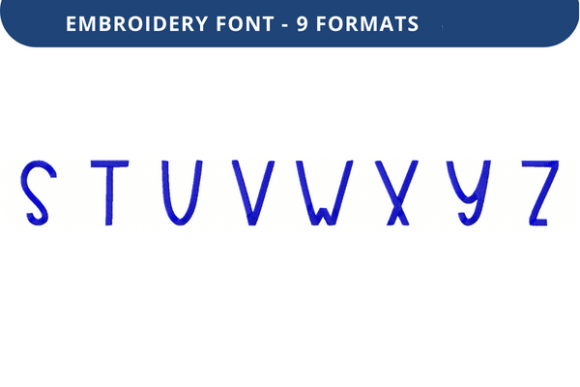
Play Pen Font S to Z: A Versatile Embroidery Font for Creative Projects
Play Pen Font S to Z is a unique embroidery font that has gained popularity among crafters, designers, and hobbyists. This high-quality embroidery font offers a fun and creative way to personalize various fabric items. Whether you're looking to add a special touch to a gift or create custom designs for your business, Play Pen Font S to Z provides an easy-to-use solution.
What Is Play Pen Font S to Z?
Play Pen Font S to Z is a collection of lettering styles designed specifically for machine embroidery. It features a playful and whimsical aesthetic, making it ideal for a wide range of projects. The font includes all the letters from S to Z, which makes it particularly useful for creating names, dates, and quotes on fabric.
The Play Pen Font S to Z is known for its clean lines and distinct shapes, allowing for clear visibility even when embroidered at smaller sizes. Its design is both eye-catching and versatile, enabling users to adapt it to different themes and styles.
Key Features of Play Pen Font S to Z
Where Can Play Pen Font S to Z Be Used?
The versatility of Play Pen Font S to Z makes it suitable for a variety of applications. Here are some common uses:
Personalized Gifts
Whether it's a birthday card, a baby blanket, or a wedding accessory, Play Pen Font S to Z allows you to add a personal touch. For example, you could embroider a name or a special message on a tote bag or a pillow, making it a meaningful gift.
Commercial Products
Business owners and creators can use Play Pen Font S to Z to brand their products. From custom T-shirts to promotional items, this font helps create a cohesive and professional look.
Creative Projects
Artists and crafters often use Play Pen Font S to Z for creative projects such as scrapbooking, quilting, and home decor. Its playful style adds character and charm to any design.
Who Benefits from Play Pen Font S to Z?
Play Pen Font S to Z is beneficial for a wide audience, including:
Strengths and Limitations of Play Pen Font S to Z
Like any embroidery font, Play Pen Font S to Z has its strengths and limitations. Understanding these can help you determine if it's the right choice for your project.
Strengths
Limitations
Real-World Applications of Play Pen Font S to Z
Let’s explore a few real-world scenarios where Play Pen Font S to Z has been successfully used:
Wedding Invitations
A couple used Play Pen Font S to Z to embroider custom wedding invitations on fabric. The playful font added a unique and memorable element to their event.
Custom Apparel
A small clothing brand incorporated Play Pen Font S to Z into their designs, using it to add personalized tags to their products. This helped them stand out in a competitive market.
Home Decor
An interior designer used Play Pen Font S to Z to create custom wall art and throw pillows. The font’s whimsical style complemented the overall theme of the space.
How to Evaluate Suitability for Your Needs
Before purchasing or using Play Pen Font S to Z, consider the following factors:
1. Project Type: Determine whether the font will be used for personal, commercial, or artistic purposes.
2. Target Audience: Consider the preferences of your audience. Will they appreciate the playful style of Play Pen Font S to Z?
4. Design Complexity: Assess how intricate the design will be and whether the font will work well within the overall composition.
By carefully evaluating these aspects, you can make an informed decision about whether Play Pen Font S to Z is the right choice for your project.
Conclusion
Play Pen Font S to Z is a valuable tool for anyone interested in embroidery. Its playful design, versatility, and ease of use make it a great option for both personal and professional projects. Whether you're creating custom gifts, branding your business, or exploring creative possibilities, this font offers a unique and engaging way to bring your ideas to life.